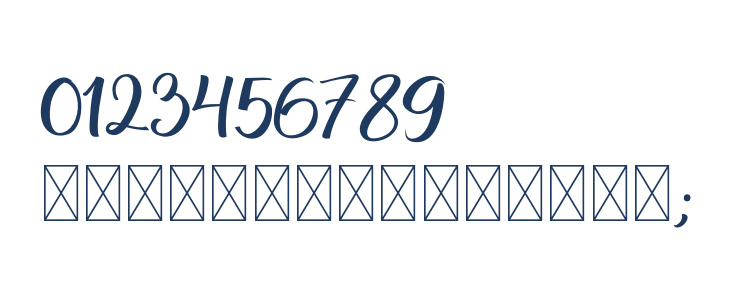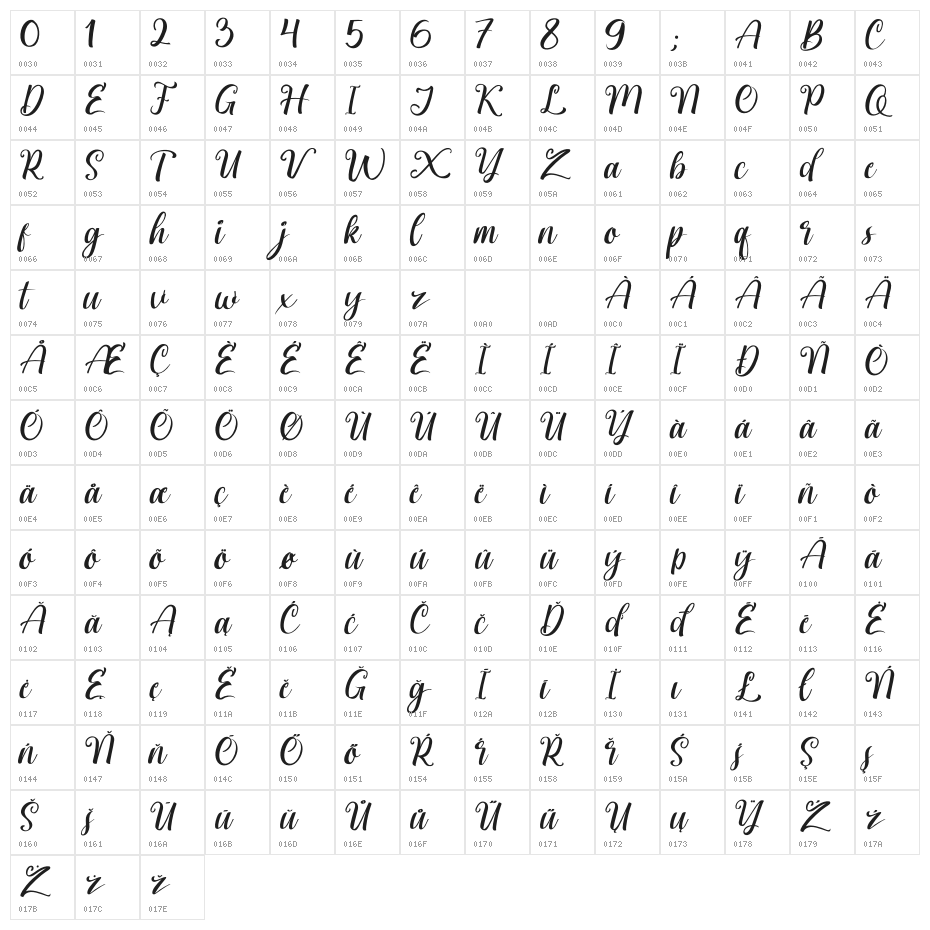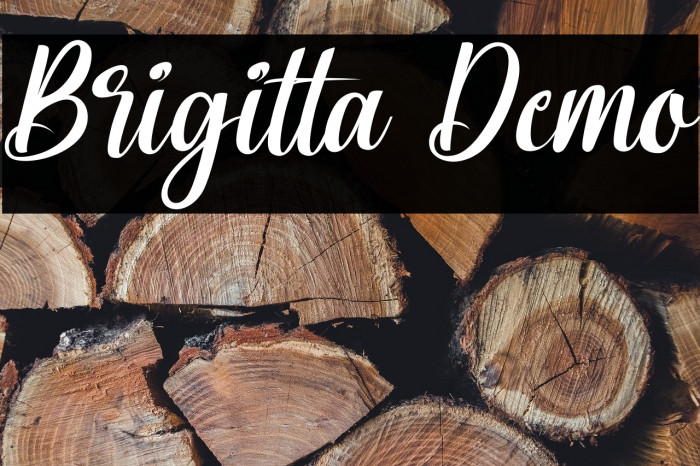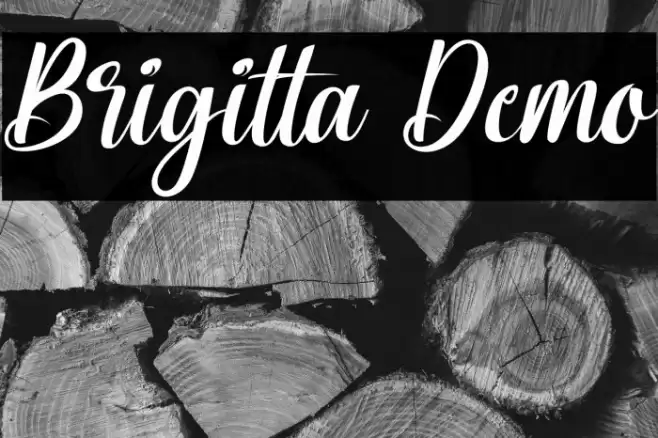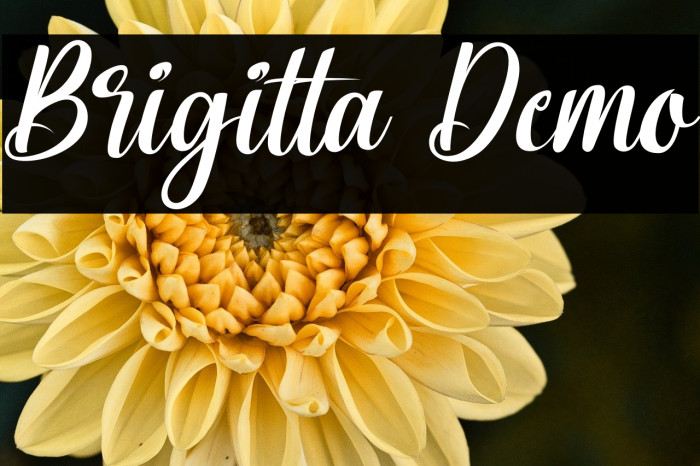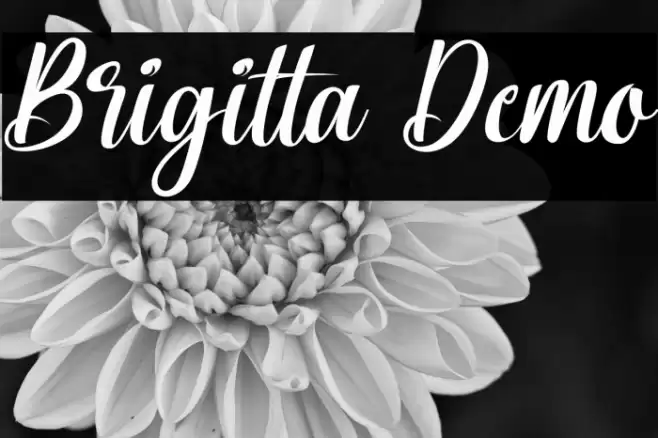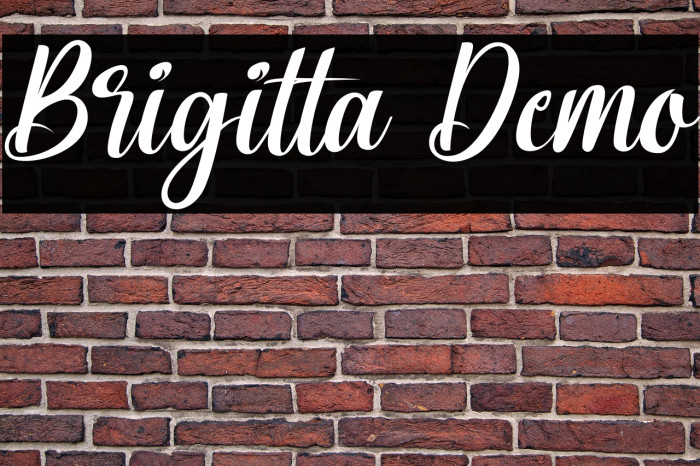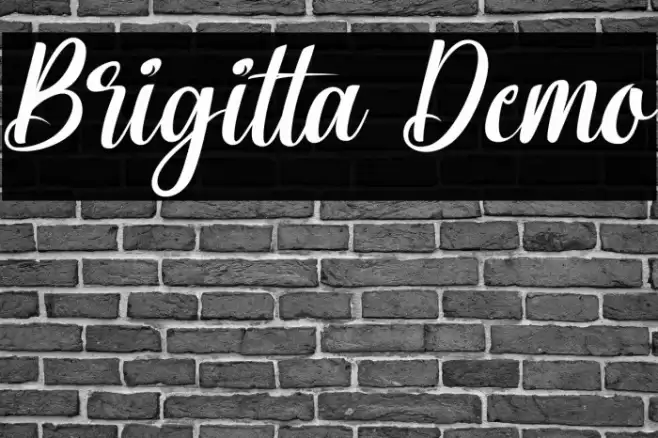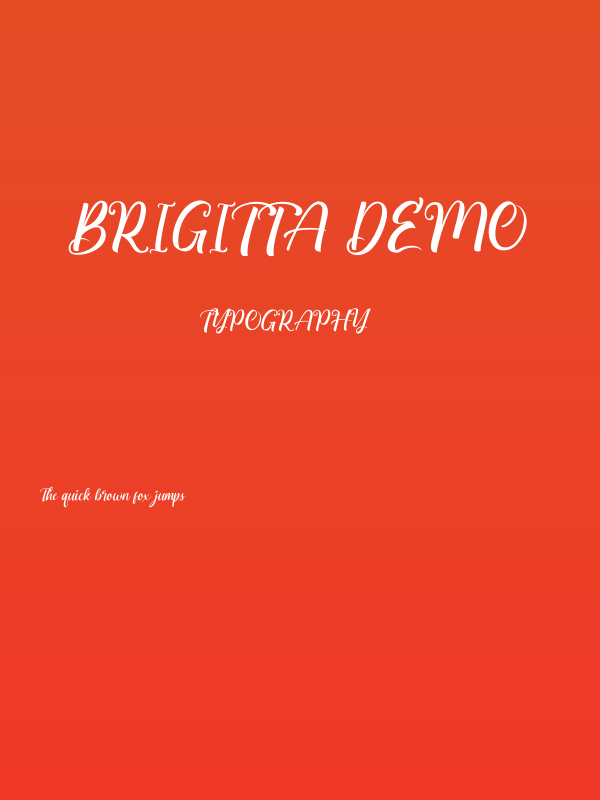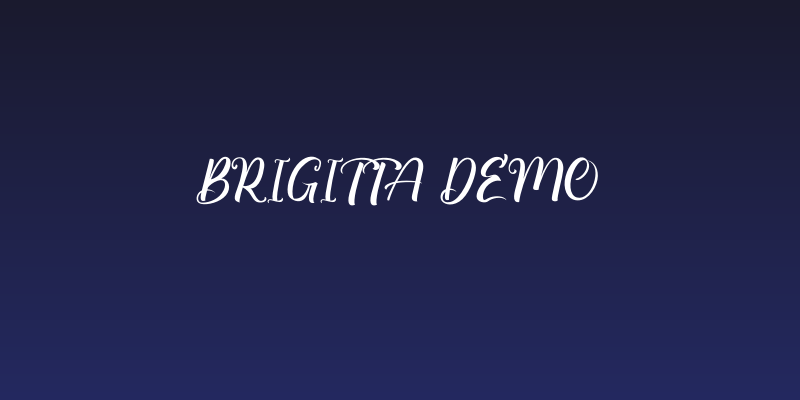
Brigitta Demo Font
Brigitta Demo Description
This font exudes a sense of elegance and fluidity, characterized by its script style that mimics the flow of cursive handwriting. The uppercase letters are gracefully elongated with subtle flourishes, while the lowercase letters maintain a consistent rhythm with smooth curves and loops. The numerals are designed with a similar flair, ensuring a cohesive look across all characters. The font's overall appearance is both sophisticated and approachable, making it suitable for a variety of creative projects. Its design is versatile enough to be used in both formal and informal contexts, offering a touch of personality and charm.